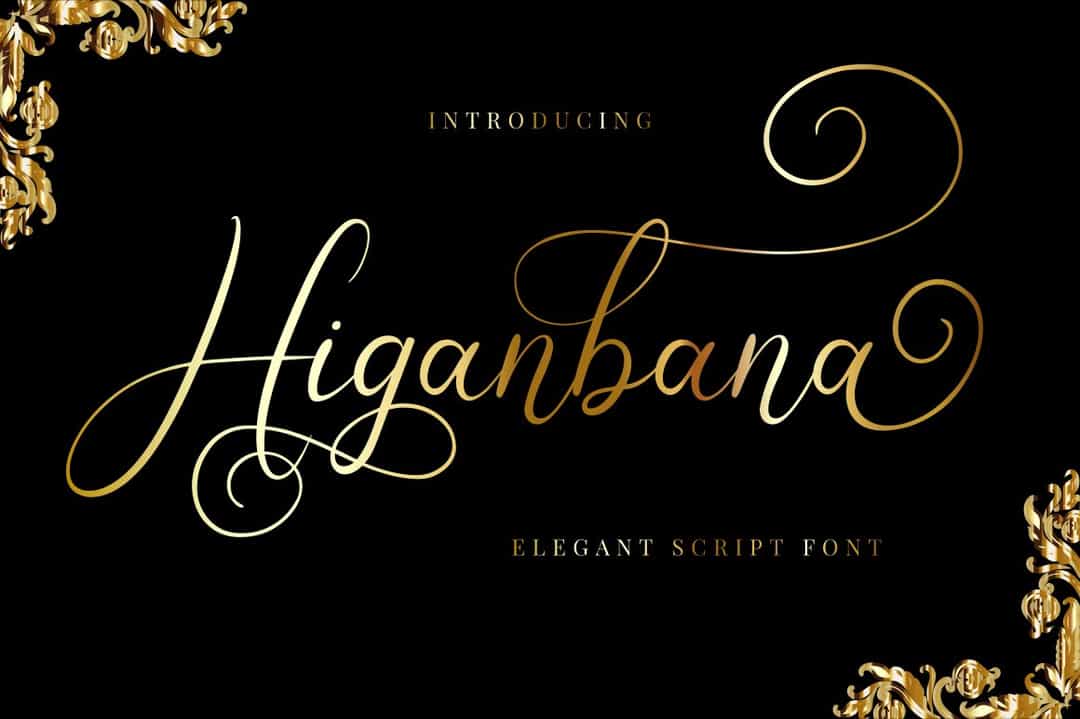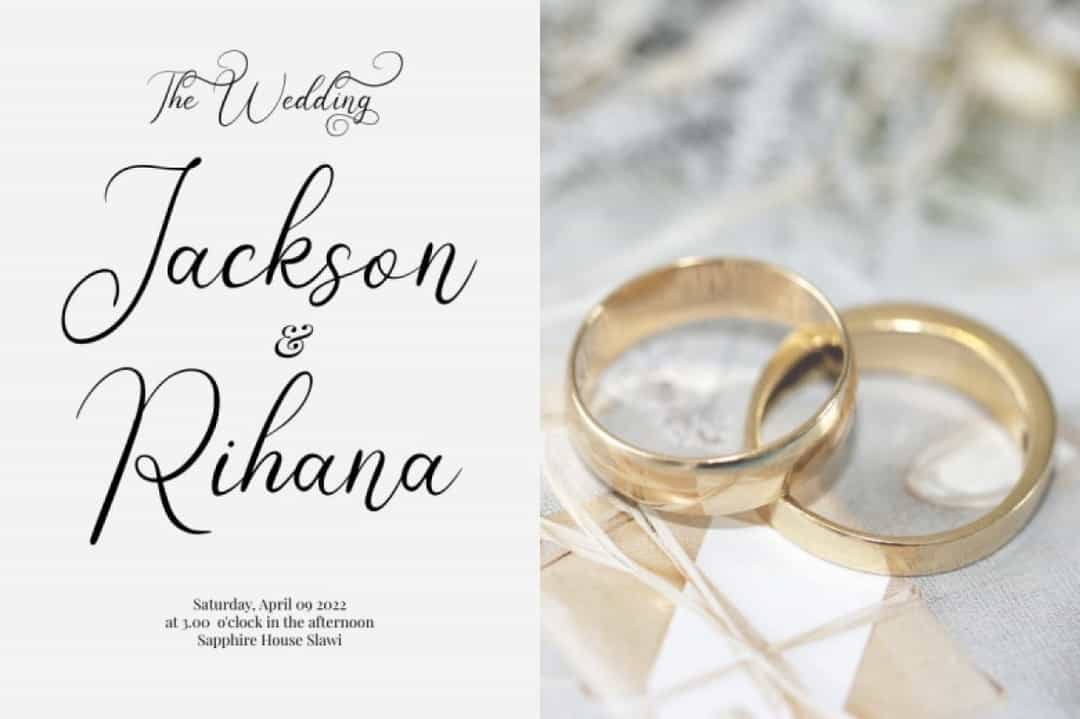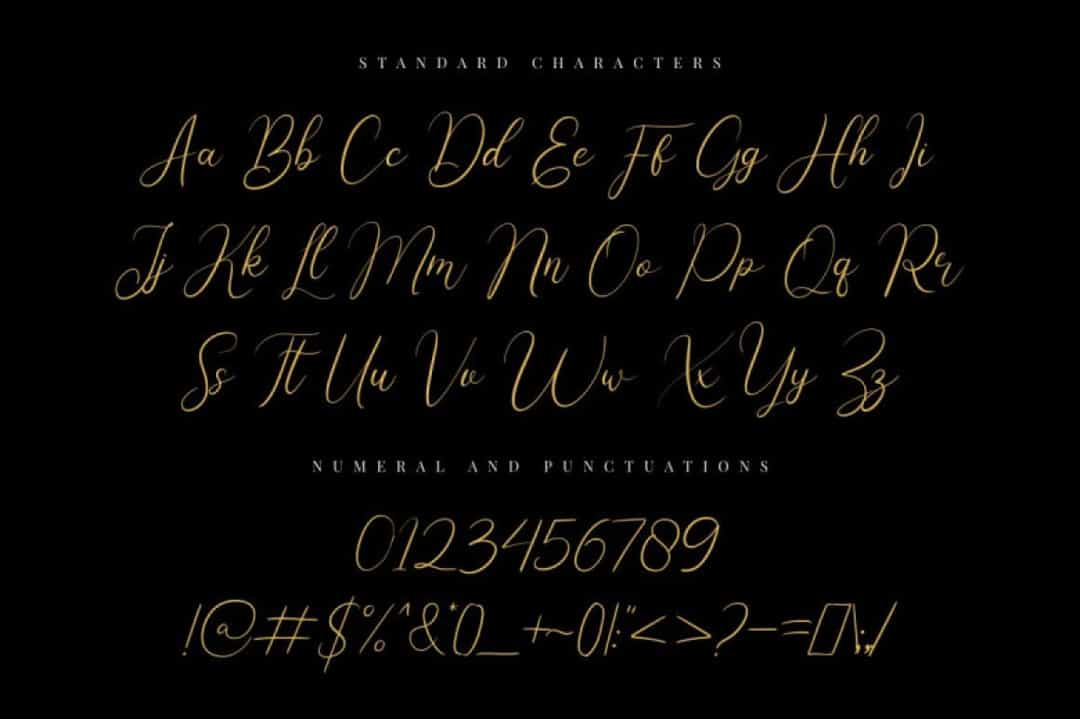
Higanbana is an elegant and stylish calligraphy script font, made from natural handwriting, and carefully designed to get maximum results and is perfect for pairing with serif and sans serif fonts.